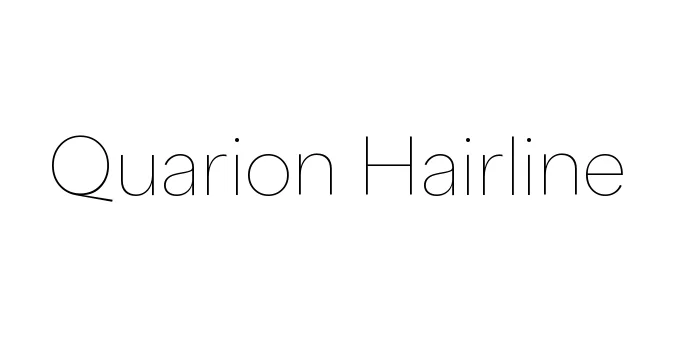
Quarion Hairline
Designed by René Bieder
| Category | Geometric Sans Serif |
Quarion Hairline is a sophisticated geometric sans-serif typeface designed by the renowned German type designer René Bieder. As the most delicate weight in the extensive Quarion family, it reflects a blend of early 20th-century functionalism and 21st-century modernism. The design is rooted in geometric shapes but is meticulously refined with optical corrections to ensure that the hairline thickness remains sharp and legible, even at high resolutions.
The typeface is characterized by its open apertures, generous x-height, and clean, unadorned terminals. Because of its extreme thinness, Quarion Hairline creates a sense of luxury, lightness, and breathability in layouts. It is specifically engineered for display purposes where an ethereal yet structured aesthetic is required, making it a staple for designers working within the realms of fashion, high-end editorial, and minimalist architectural branding.
Quarion Hairline Best Uses
Ideal for high-end fashion and lifestyle magazine headlines where elegance is key.
Perfect for minimalist logos and premium brand identities requiring a delicate touch.
Excellent for large-scale hero text on modern, white-space heavy websites.
Highly effective for sophisticated invitations, art exhibition posters, and gallery catalogs.